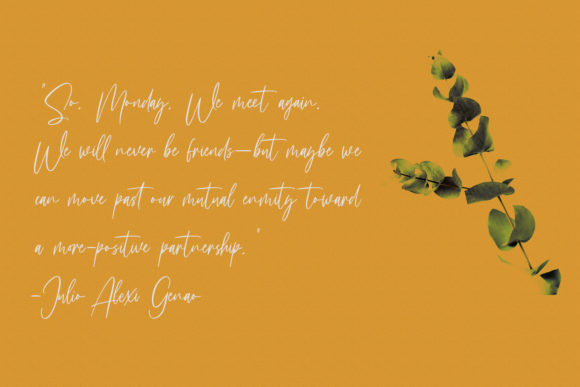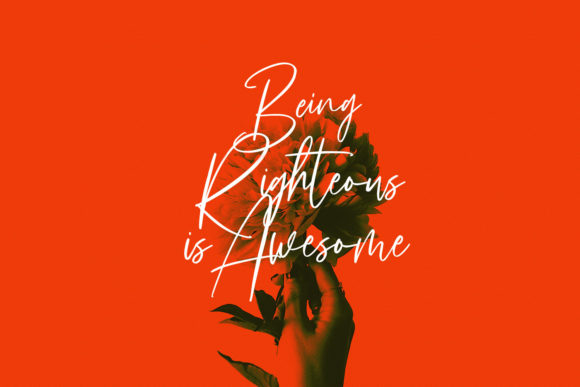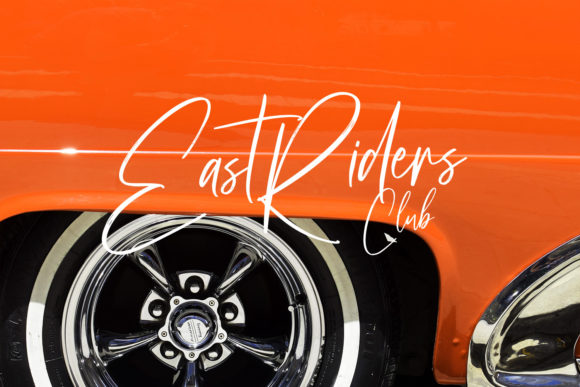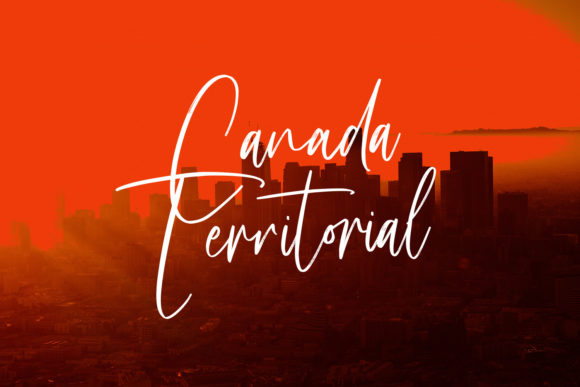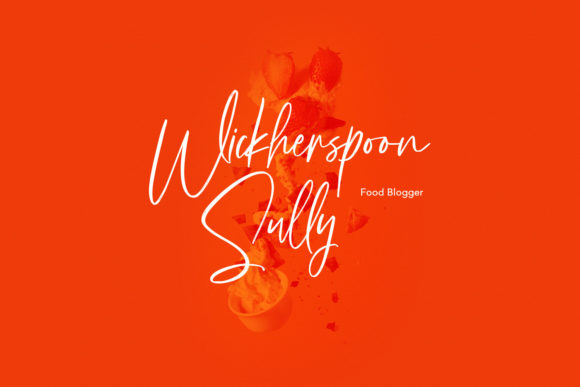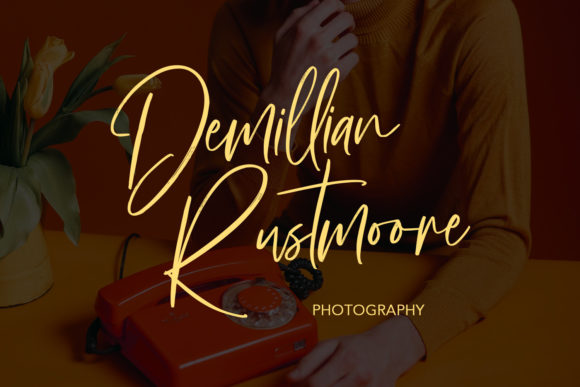
Introduction to Sallymoores Font
Have you ever stumbled upon a beautiful design that instantly sparks creativity? For me, it was a vintage poster with a delicate, hand-painted script font. The way the letters danced across the page, with each stroke perfectly balanced and varied, left me in awe. I couldn’t help but wonder how I could recreate that magic in my own projects.
As a designer, I know that the right font can make or break a design. That’s why I’m excited to introduce you to the Sallymoores Font, a fashionable, light, and asymmetrical script font that’s perfect for adding a touch of elegance to your creative projects.
Key Features of Sallymoores Font
- Unique characteristics include a modern aesthetic and a wide range of customization options, making it an ideal choice for designers looking to add a touch of sophistication to their work.
Honest Review: Sallymoores Font
As a designer, I’m always on the lookout for high-quality design resources to elevate my creative projects. Recently, I stumbled upon the Sallymoores Font, and I’m excited to share my honest review with you.
- ✨ High-quality design: The Sallymoores Font boasts a unique, hand-drawn aesthetic that adds a touch of personality to any design.
- ⚠️ Limited language support: The Sallymoores Font may not support certain languages, which could be a limitation for international designs.
- ⚠️ Limited font variations: While the font has a unique aesthetic, it may not offer as many variations as some other fonts on the market.
Overall, I’m impressed with the Sallymoores Font’s unique design and high-quality execution. While it may have some limitations, it’s a valuable design resource for anyone looking to add a touch of personality to their creative projects.
How to Use Sallymoores Font
Tips for Getting the Most Out of Sallymoores Font
To get the most out of the Sallymoores Font, try combining it with other design elements, such as bold colors and geometric shapes. You can also use it to create a consistent brand identity across all your marketing materials.
The Sallymoores Font is perfect for a variety of creative projects, including:
- Logos